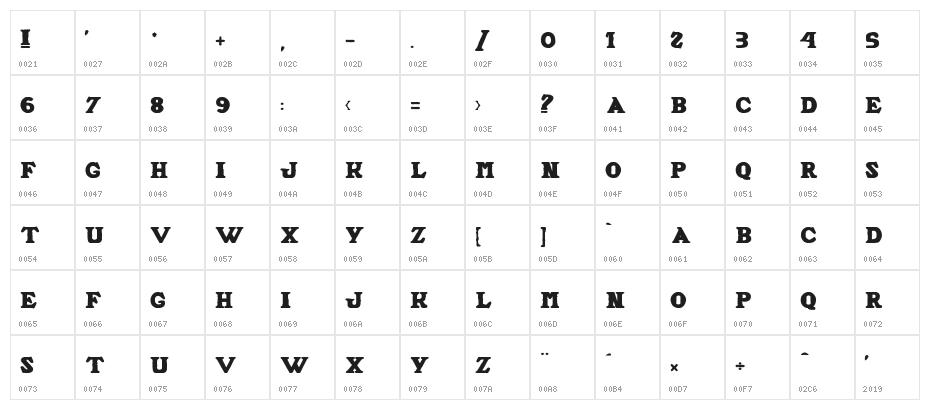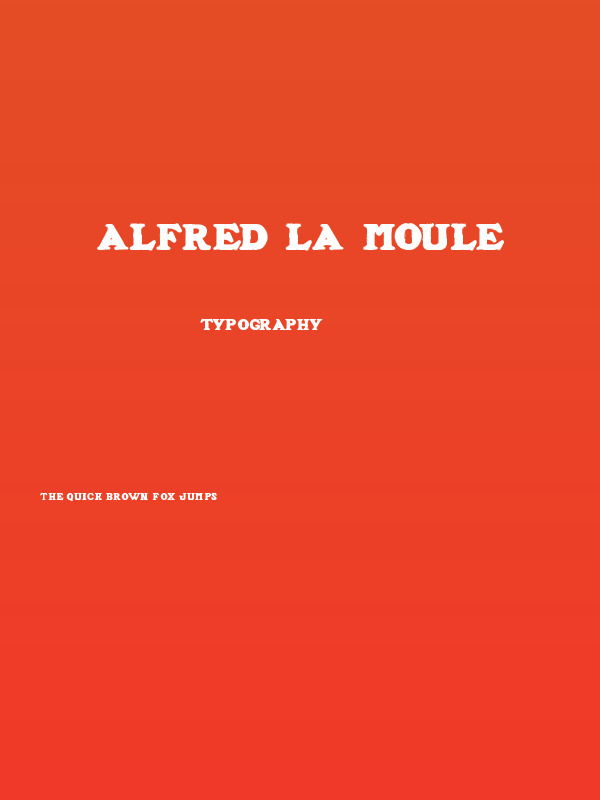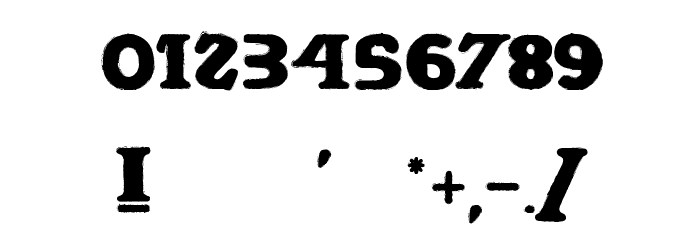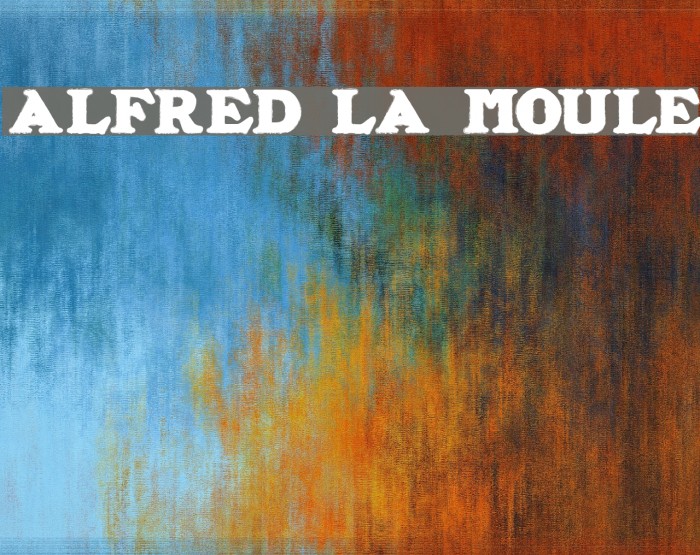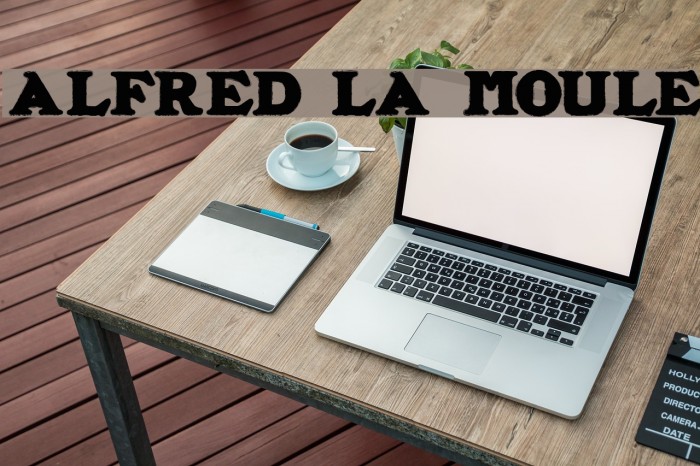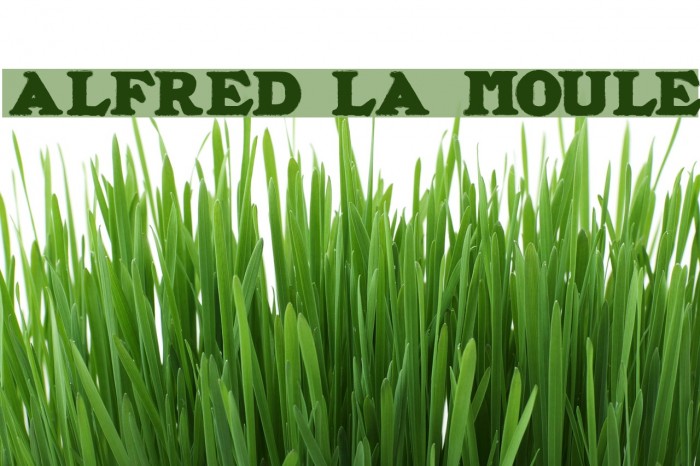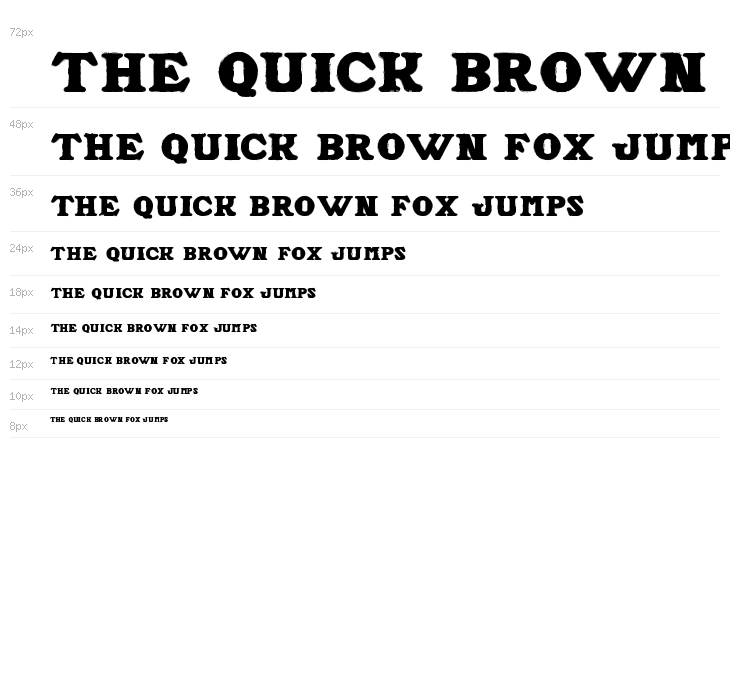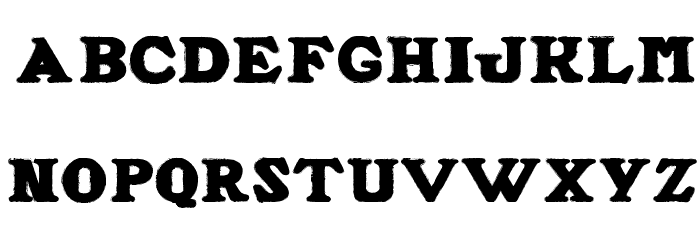
ALFRED LA MOULE Font
ALFRED LA MOULE Description
This font features bold, thick strokes with a slightly distressed appearance, giving it a vintage and rugged feel. The characters are uniformly wide, with a consistent weight that emphasizes their boldness. The uppercase letters are particularly striking, with strong serifs that add to the font's classic aesthetic. The numbers and special characters maintain the same bold style, ensuring a cohesive look across all text. This font's unique texture and weight make it stand out, ideal for projects that require a strong visual impact.
| Proposed Projects | Ideal for vintage posters, branding, headlines, and any project needing a bold, classic touch. |